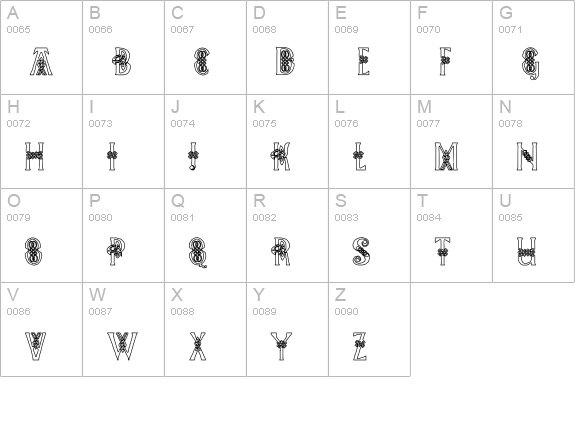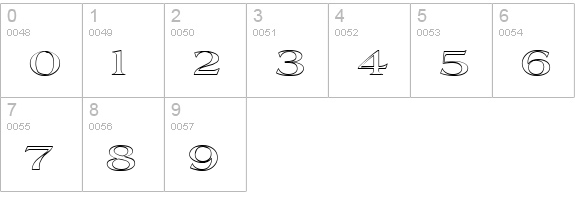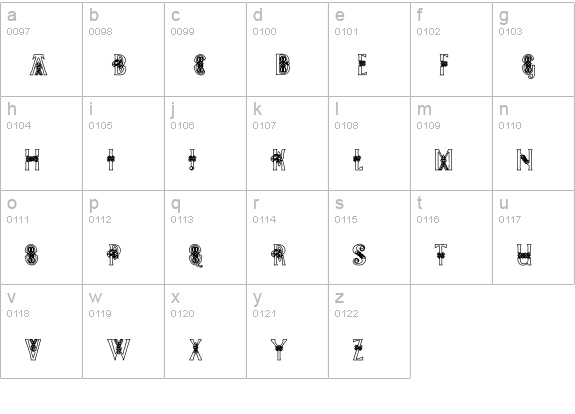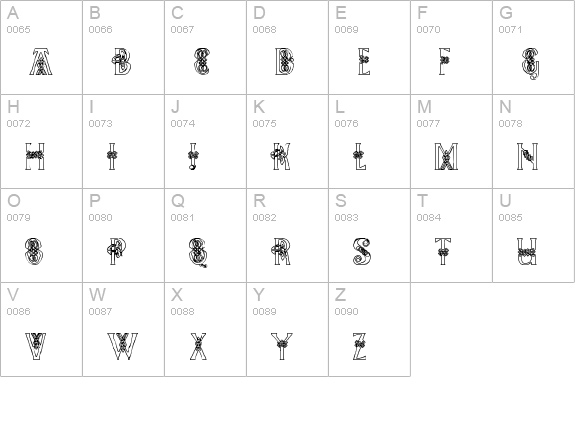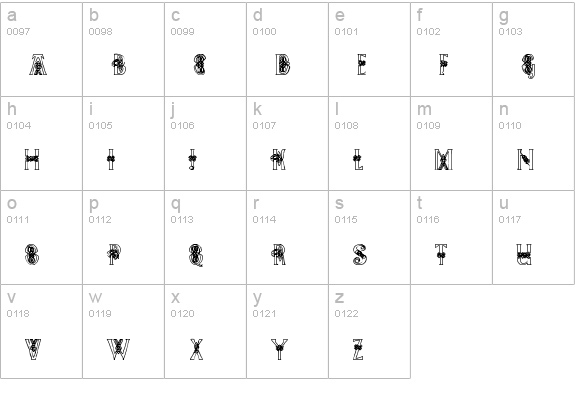
Pee's Celtic outline Font Details
Introducing Pee's Celtic Outline Font, a captivating typeface that beautifully captures the essence of Celtic artistry and tradition. This unique font is meticulously crafted, presenting intricate Celtic-inspired patterns that will add a touch of elegance and mystique to any design project. With its delicate yet bold strokes, Pee's Celtic Outline Font effortlessly combines the ancient Celtic art form with modern design sensibilities. Whether you're designing a logo, creating stunning graphics, or crafting eye-catching headlines, this font is sure to make a lasting impression. What's even better, Pee's Celtic Outline Font is available for free download at FontsMarket.com. This means you can easily access this stunning typeface and add it to your font library without any cost. This free offer allows designers, artists, and enthusiasts alike to explore the beauty of Celtic design and incorporate it into their creative endeavors. Pee's Celtic Outline Font offers a wide range of options with its comprehensive character set, including uppercase and lowercase letters, numerals, punctuation marks, and special symbols. Its versatility allows for seamless integration into various design projects, making it suitable for both digital and print mediums. The attention to detail in Pee's Celtic Outline Font is truly remarkable. Every curve, every line, and every intricate pattern has been meticulously crafted, ensuring a flawless representation of the rich Celtic heritage. The result is a font that exudes a sense of timeless beauty and cultural significance. Whether you're creating a captivating poster, designing a striking website, or adding a unique touch to your personal branding, Pee's Celtic Outline Font is the perfect choice. Its elegant and distinctive style will elevate your designs, leaving a lasting impact on your audience. So why wait? Download Pee's Celtic Outline Font for free at FontsMarket.com and embark on a creative journey that celebrates the beauty and intricacy of Celtic art. Unleash your imagination and let this font transport you to a world of enchanting design possibilities.